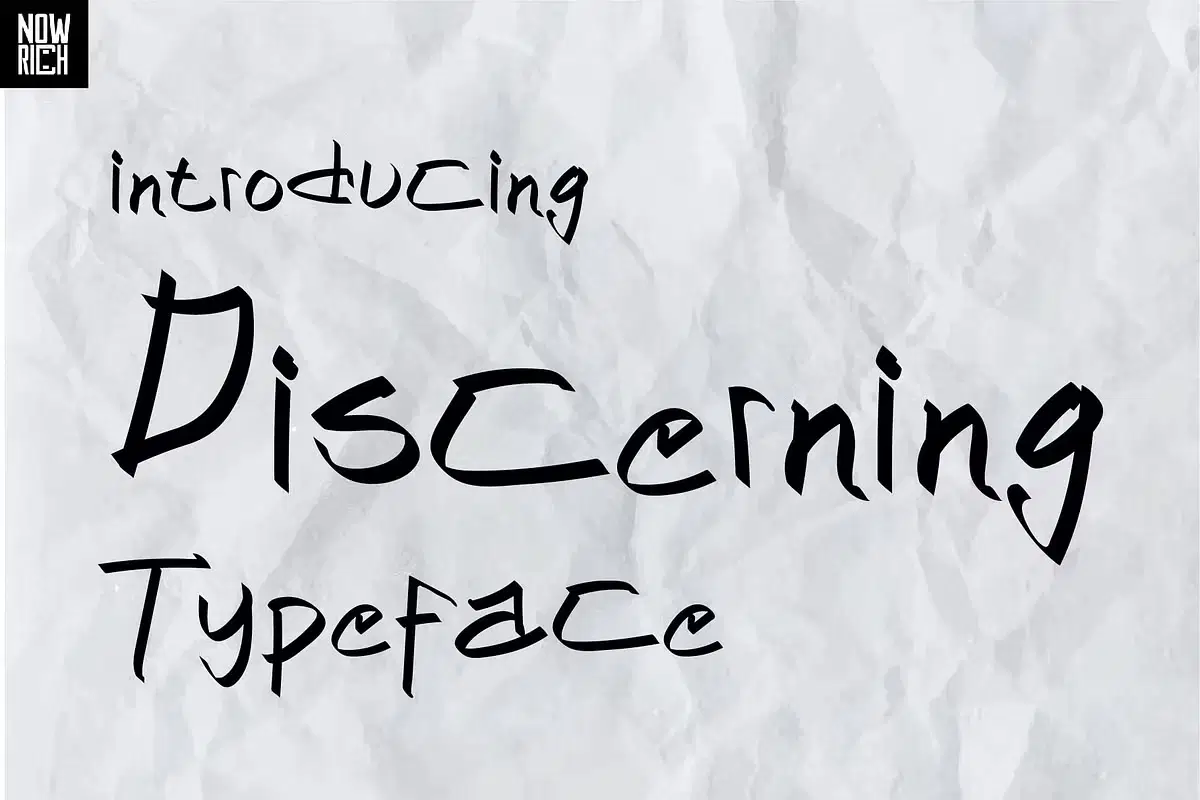
Discerning Typeface
Nouric Design
Introducing a font typeface inspired by the thrill of hunting and adventure
This modern twist on classic blackletter style combines rugged elements with personal design flair. Perfect for branding, logos, tattoos, and more, its captivating uppercase and lowercase characters evoke a sense of daring and boldness. Ideal for those seeking a blend of tradition and innovation in their graphic projects, this typeface embodies the spirit of exploration and excitement in every design.